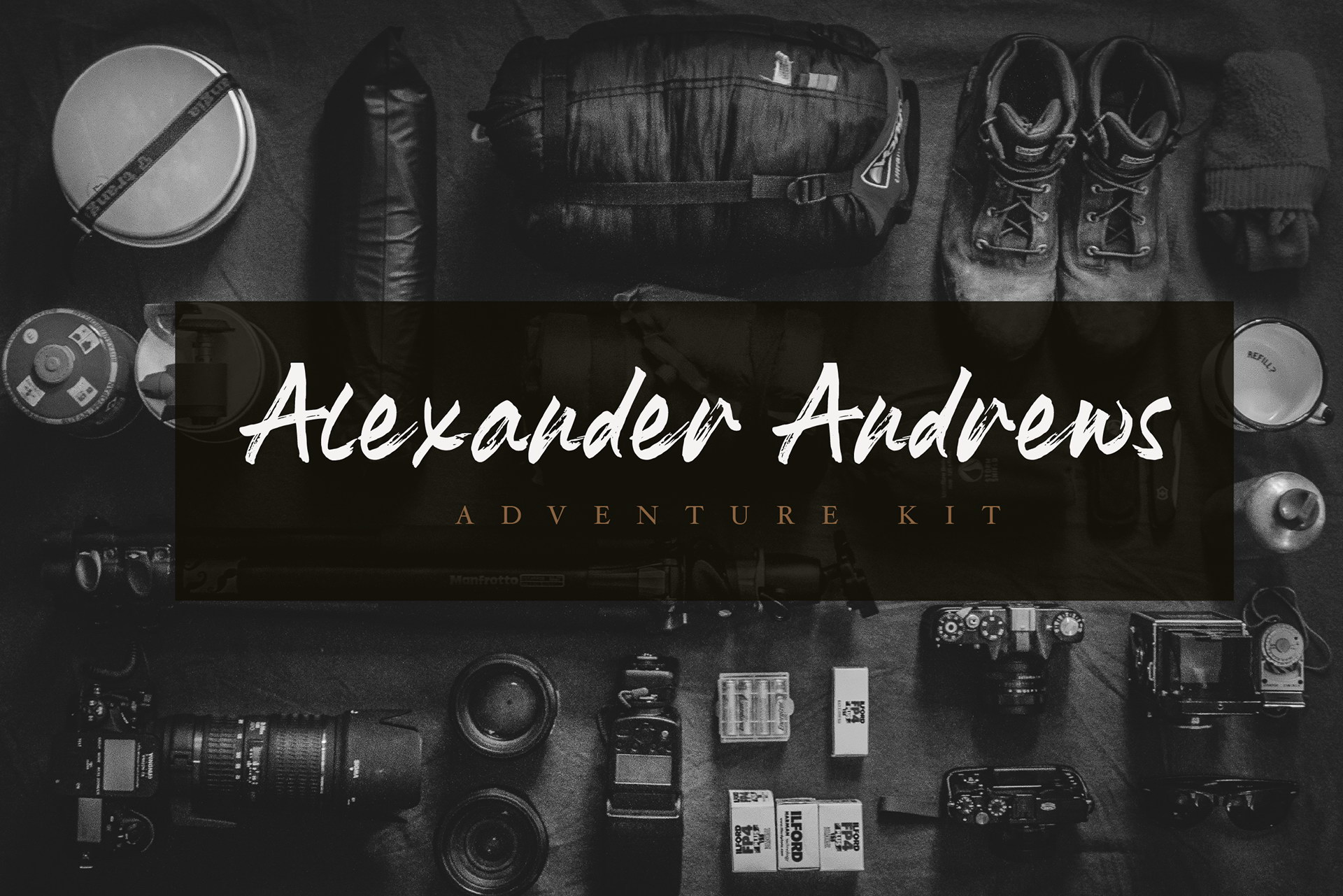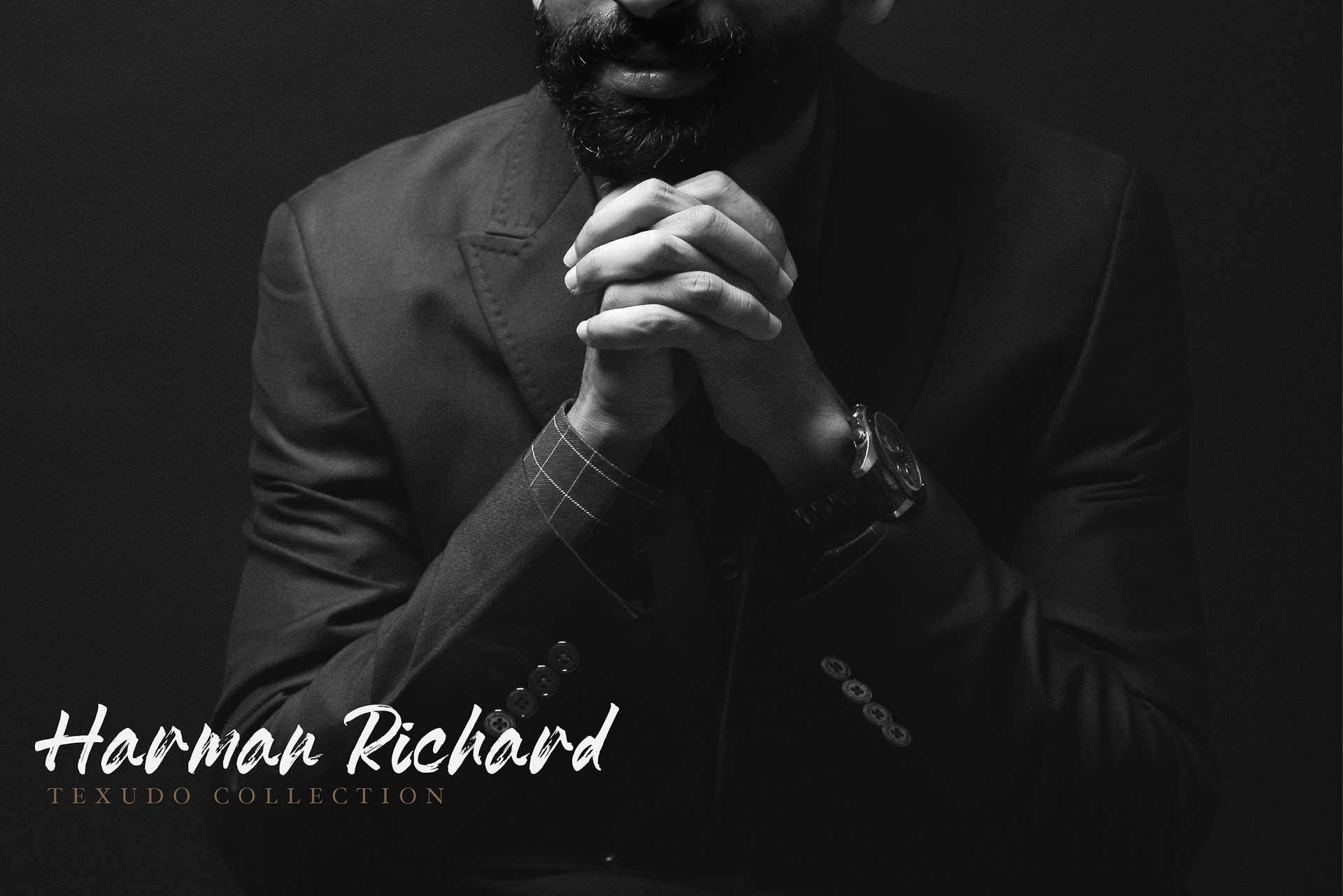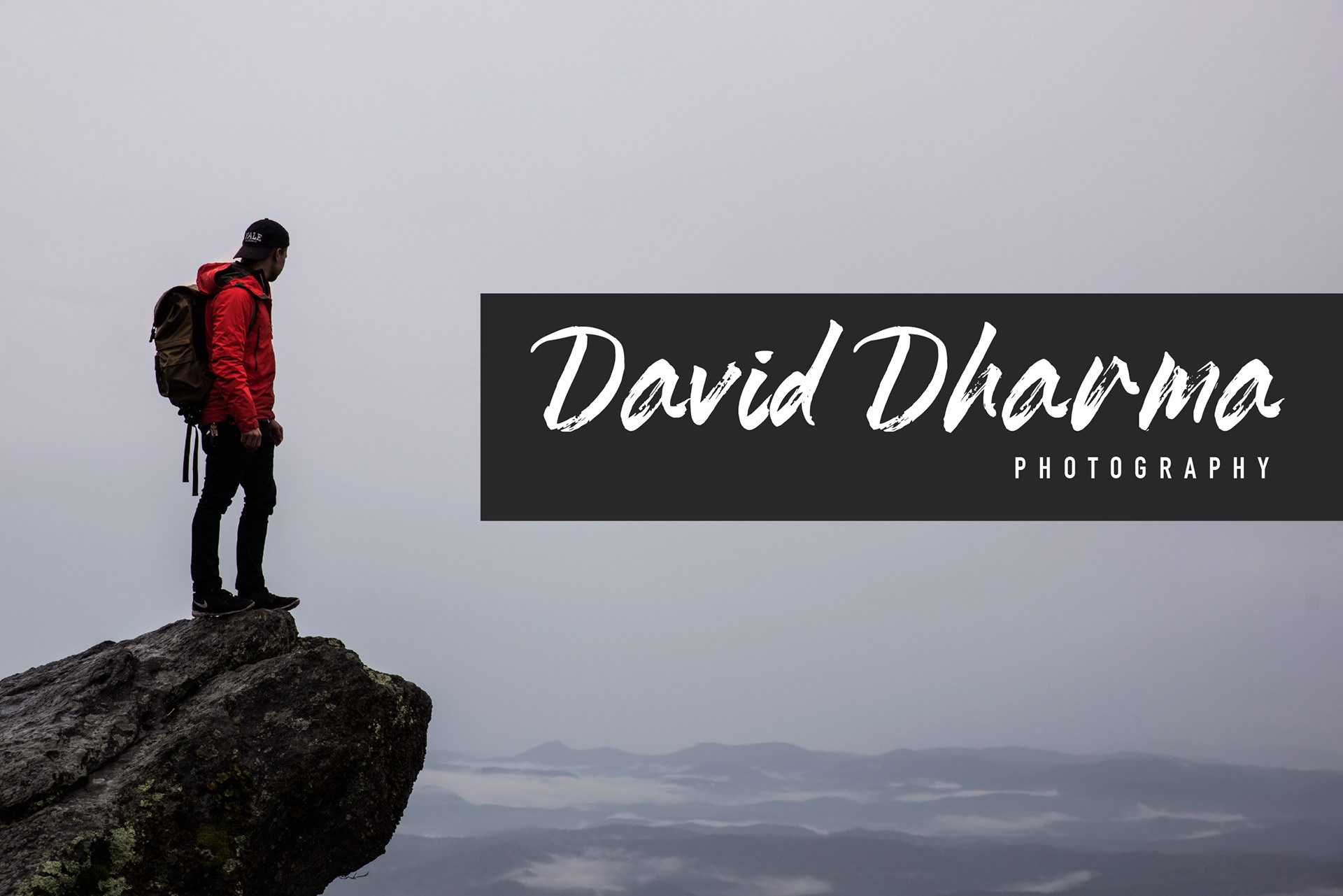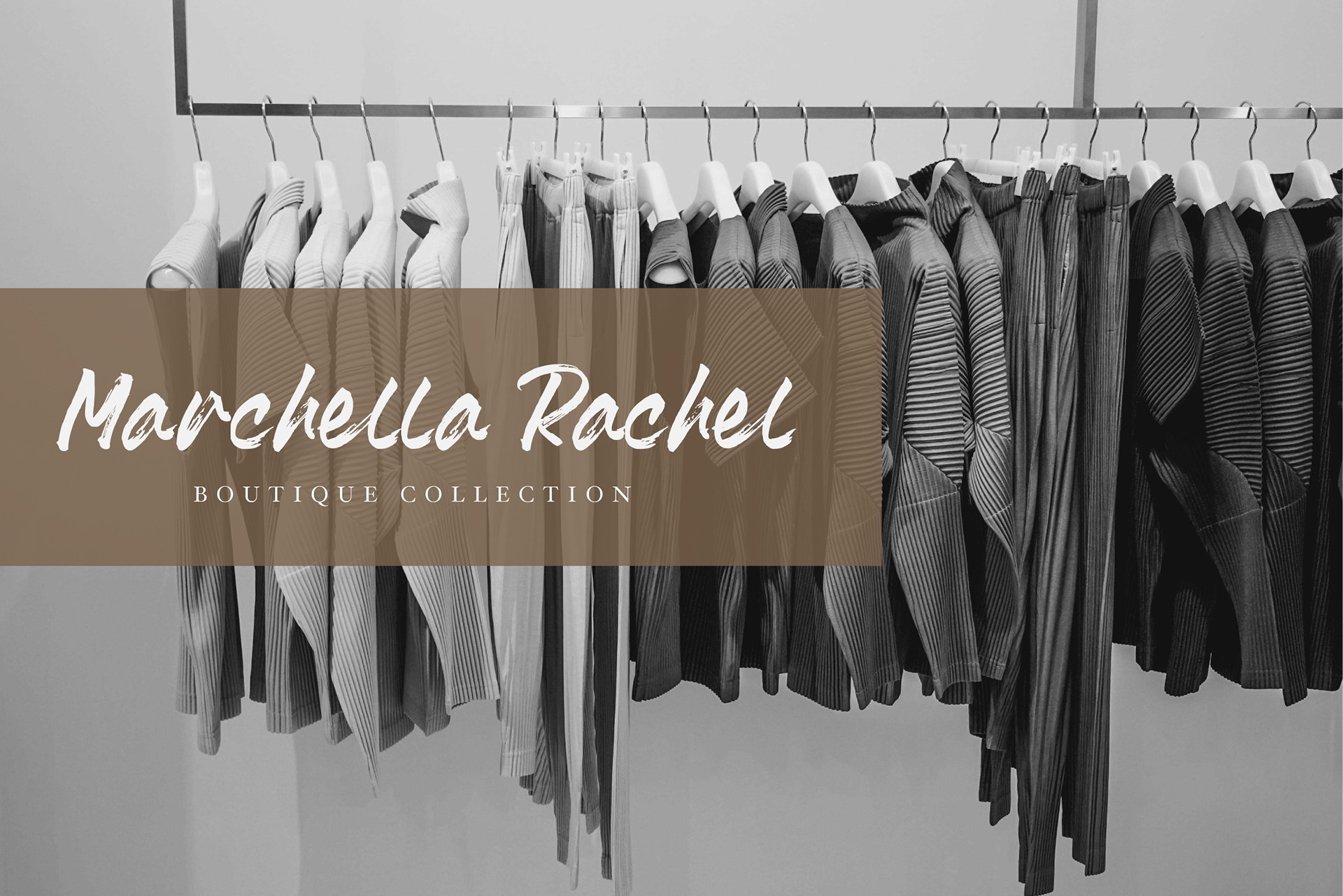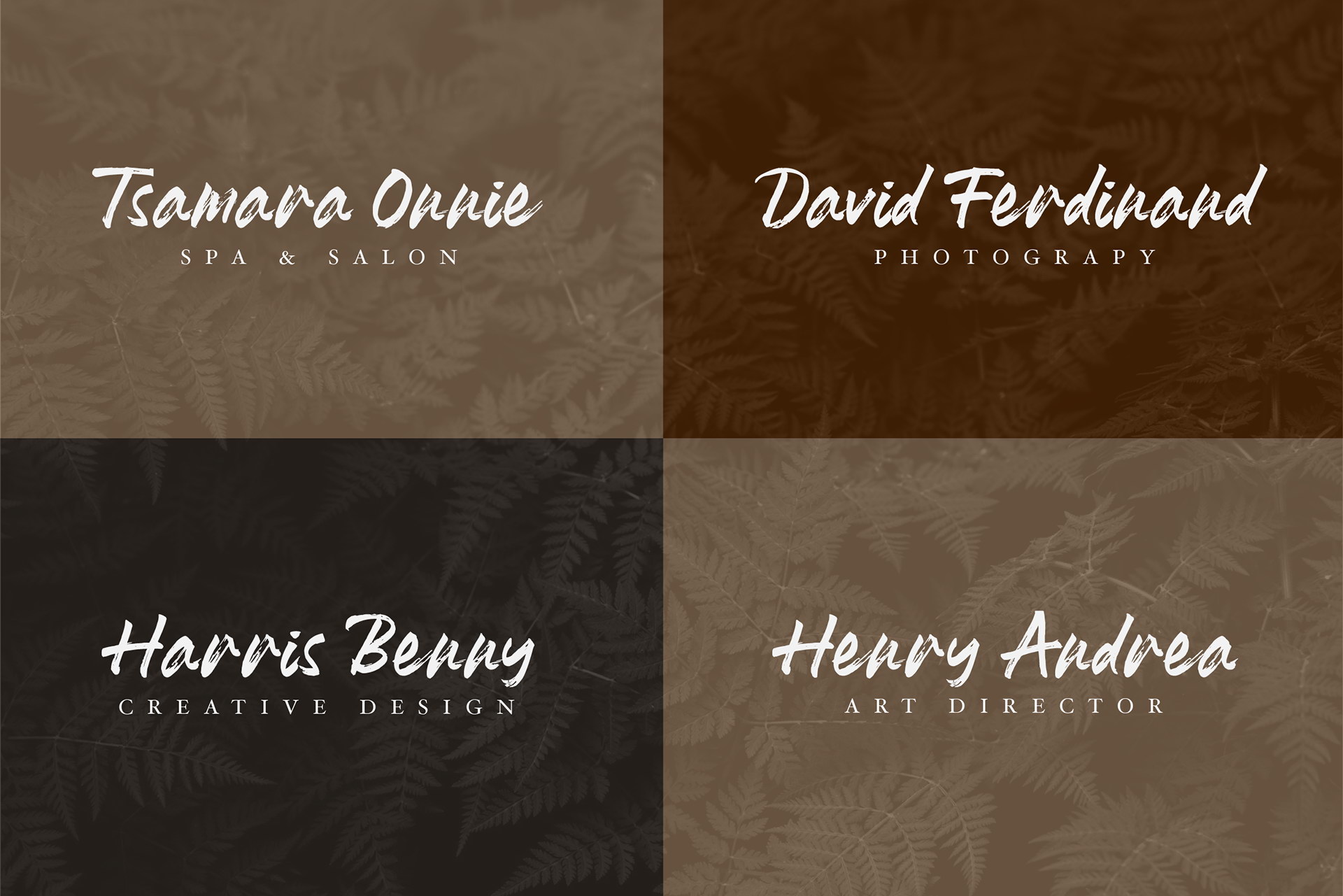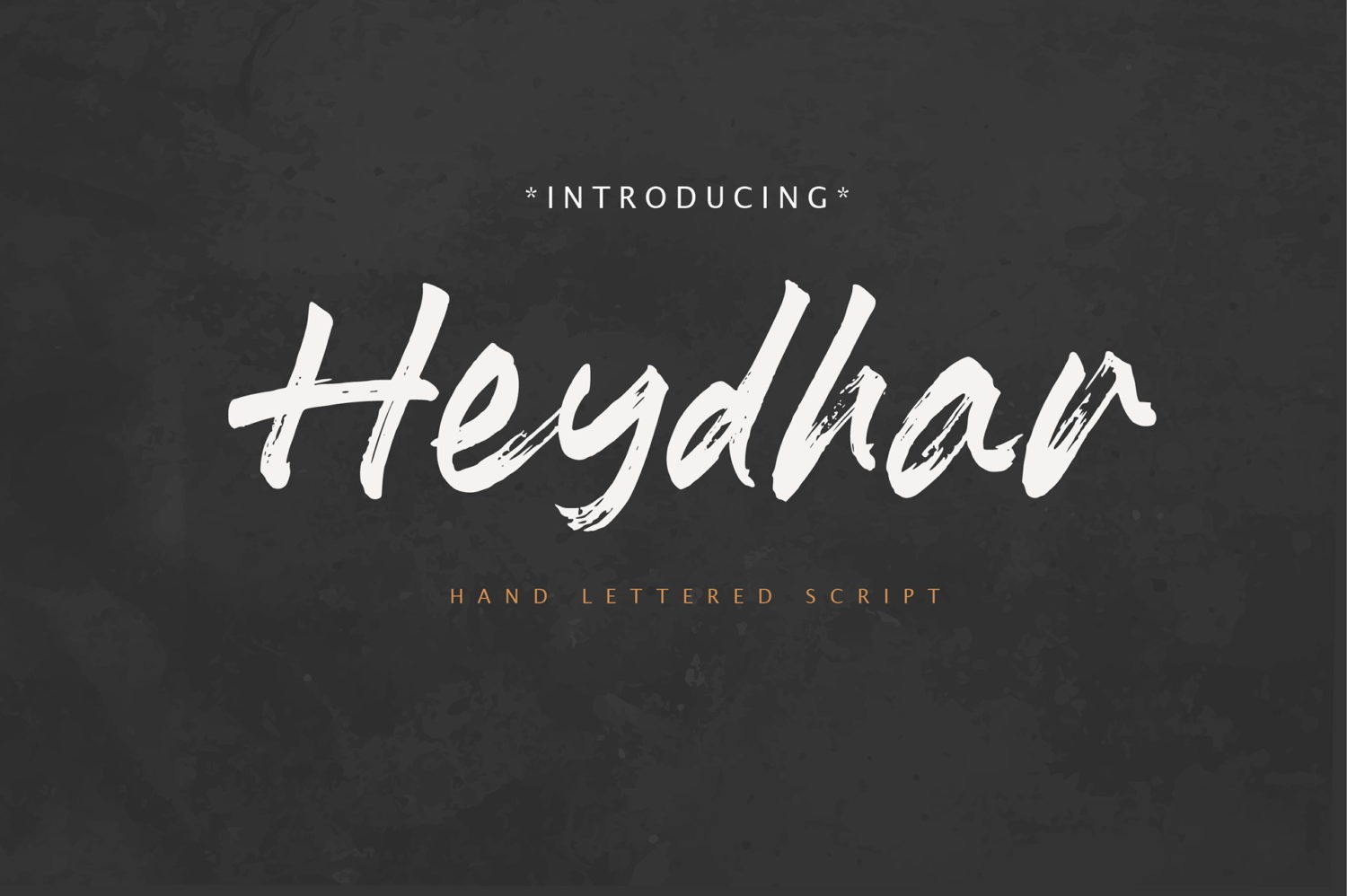
Free Heydhar Brush Font
Heydhar is a casual brush font, that is ideal for t-shirts, magazines, phone covers, social media, restaurant menus, greeting cards, invitations, weddings, headers and many more.